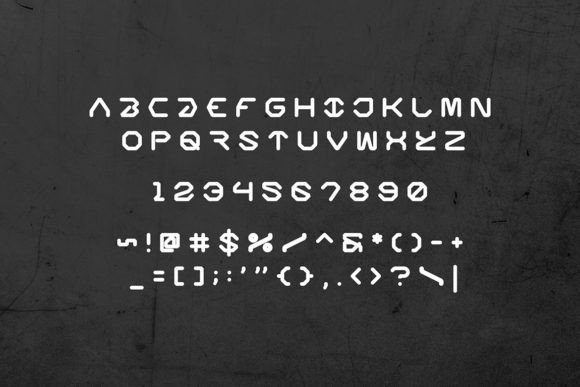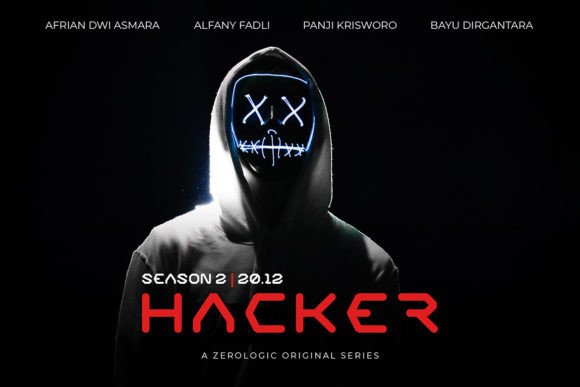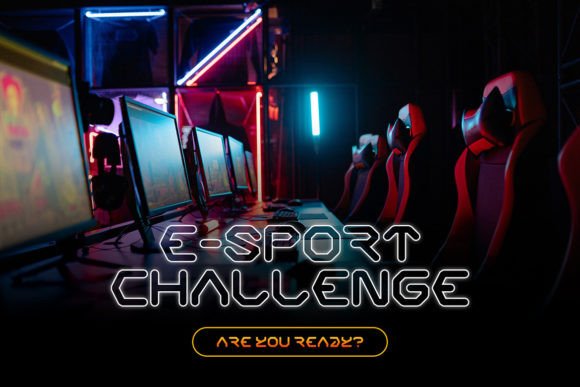
Cypher Font: Elevate Your Designs with a Futuristic Twist
In the realm of typography, fonts play a pivotal role in conveying messages, evoking emotions, and setting the tone for designs. Among the myriad of fonts available, the Cypher Font stands out for its cool and unique display characteristics, coupled with a futuristic look that is hard to ignore. In this article, we’ll delve into the world of Cypher Font, exploring its features, uses, and the creative possibilities it unlocks for designers and crafters alike.
The Essence of Cypher Font
Cypher is a stylish and innovative font that brings a touch of originality to any design project. Its futuristic aesthetic is not just visually appealing but also versatile, making it suitable for a wide range of applications. Whether you’re working on a branding project, a website design, or crafting unique digital content, Cypher Font offers a distinctive look that can set your work apart from the crowd.
Key Features of Cypher Font
- Unique and Cool Design: Cypher Font boasts a one-of-a-kind design that immediately captures attention. Its cool and edgy look makes it perfect for projects that require a modern and trendy vibe.
- Futuristic Aesthetic: The font’s futuristic look is one of its standout features. It adds a sleek and sophisticated element to designs, making them appear cutting-edge and innovative.
- Stylish and Innovative: With its stylish and innovative character, Cypher Font is ideal for designers looking to add a creative twist to their projects. It offers a fresh perspective on typography, allowing for the creation of visually stunning content.
- Versatility: Despite its unique look, Cypher Font is surprisingly versatile. It can be used in various design contexts, from digital media to print, without losing its impact.
Applications of Cypher Font
The applications of Cypher Font are vast and varied. Here are some of the most popular uses:
- Branding and Logo Design: The unique and memorable look of Cypher Font makes it an excellent choice for branding and logo design. It can help create a strong brand identity that stands out.
- Website Design: For web designers looking to create a site with a modern edge, Cypher Font can be a valuable asset. It’s particularly effective for headings and titles, where a bold statement is needed.
- Digital Content Creation: Whether you’re making social media graphics, video titles, or blog posts, Cypher Font can add a professional and contemporary feel to your digital content.
- Crafting and DIY Projects: Beyond digital design, Cypher Font can also be used in crafting and DIY projects, such as making signs, banners, or personalized gifts. Its clear and stylish letters are easy to read and visually appealing.
Tips for Using Cypher Font Effectively
To make the most of Cypher Font, consider the following tips:
- Pair with Complementary Fonts: While Cypher Font is striking on its own, pairing it with complementary fonts can enhance its beauty. Choose fonts that are simple and clean to create a balanced look.
- Experiment with Colors: Don’t be afraid to experiment with different colors. The futuristic look of Cypher Font lends itself well to bold and vibrant colors, but it can also look sleek and sophisticated with more muted tones.
- Consider the Context: Always consider the context in which your design will be viewed. Ensure that Cypher Font is legible and appropriate for your audience and the message you’re trying to convey.
| Font Name | Cypher Font |
| Author | zerologicstudio |
Cypher Font is a powerful tool for designers and crafters looking to add a futuristic twist to their projects. Its unique and stylish design, coupled with its versatility, makes it an excellent choice for a wide range of applications. By understanding its features and how to use it effectively, you can unlock new creative possibilities and take your designs to the next level. Whether you’re working on a professional project or a personal crafting endeavor, Cypher Font is sure to make a lasting impression.